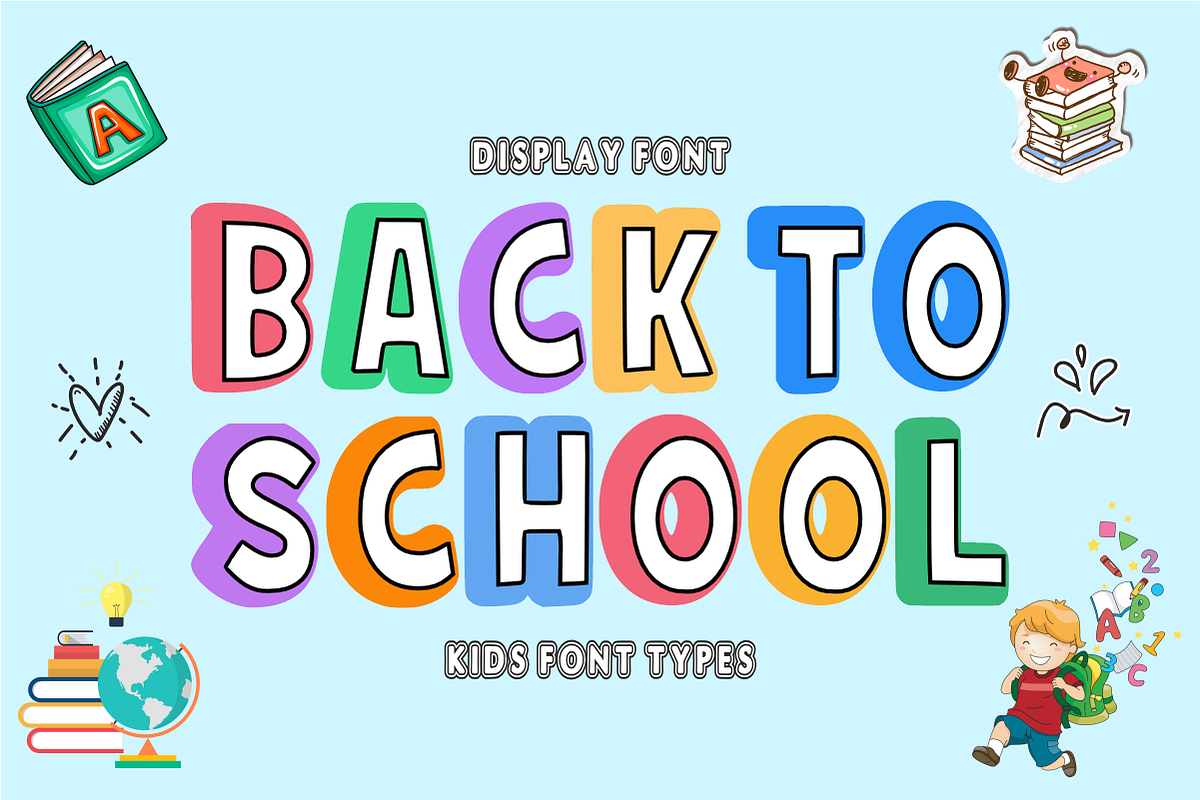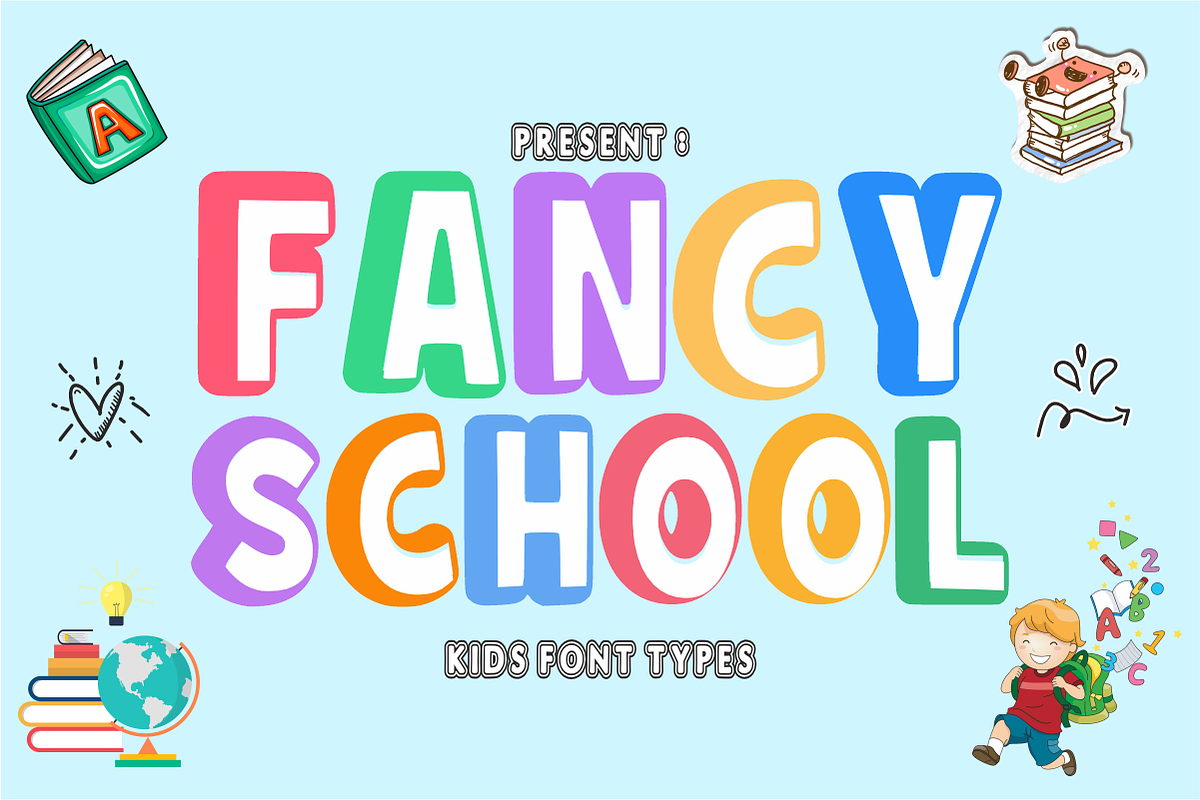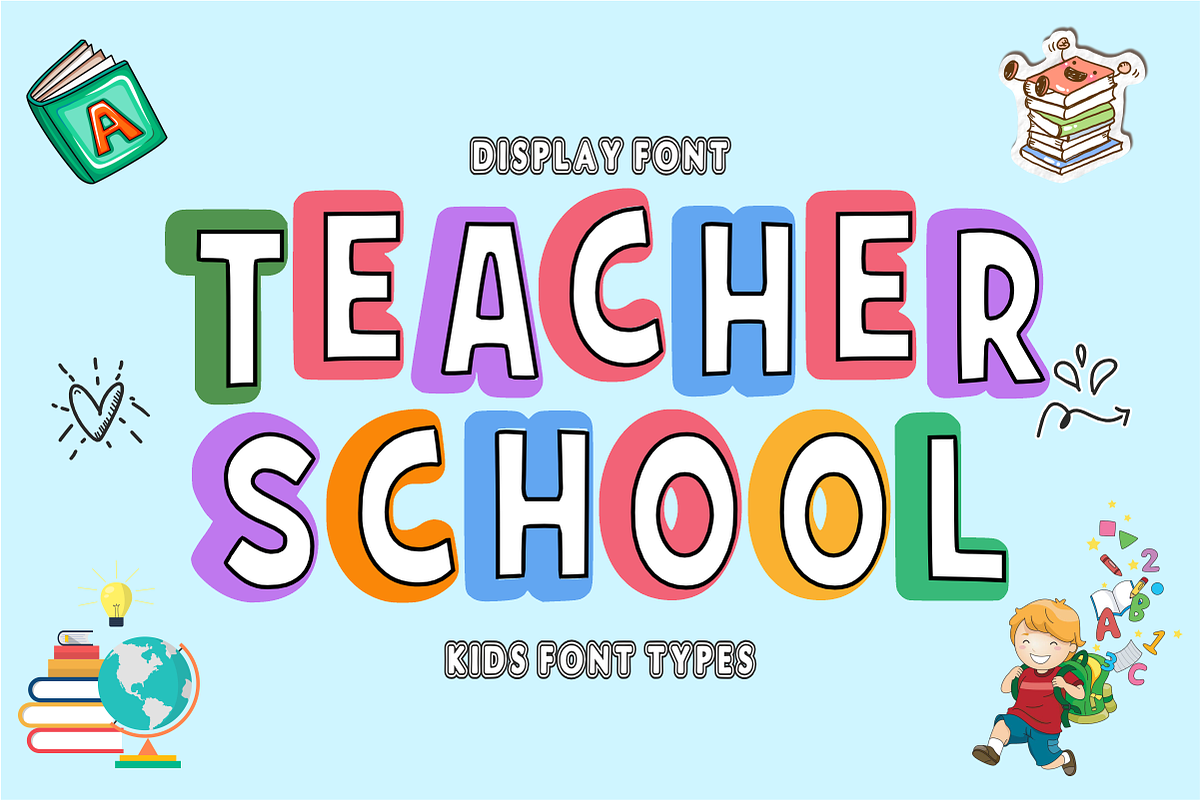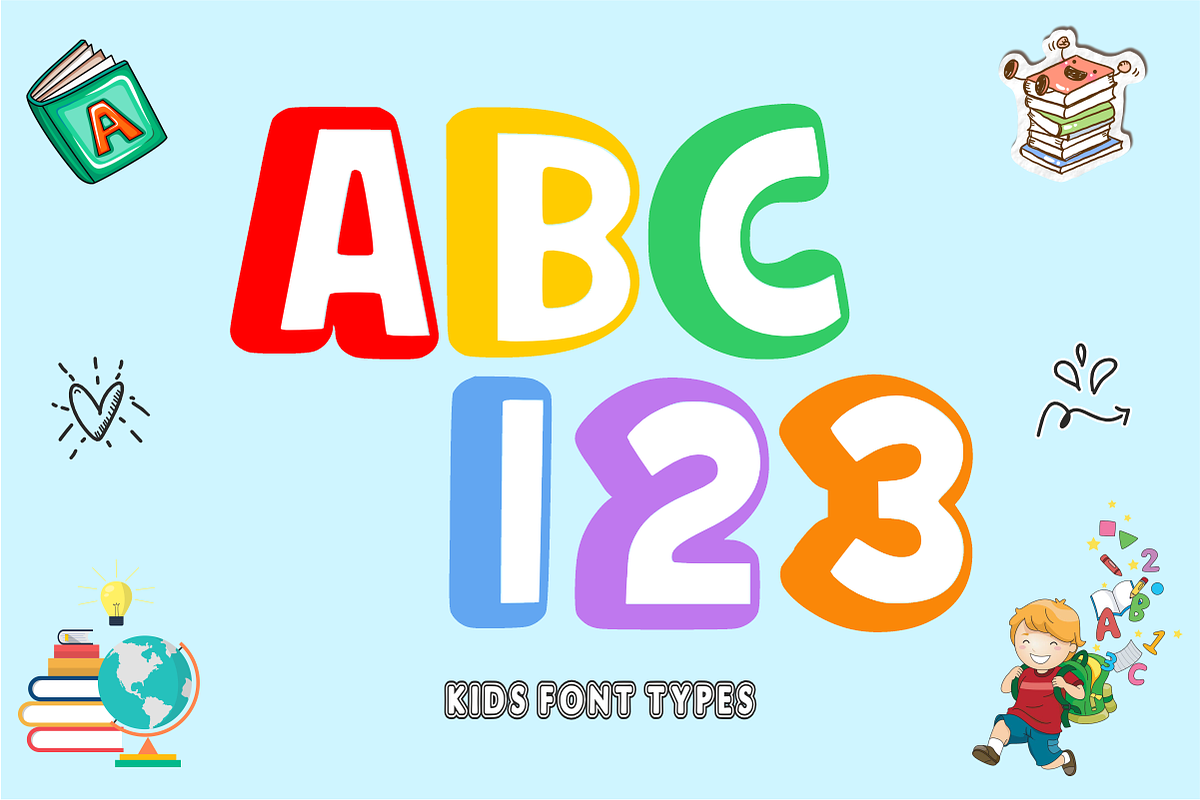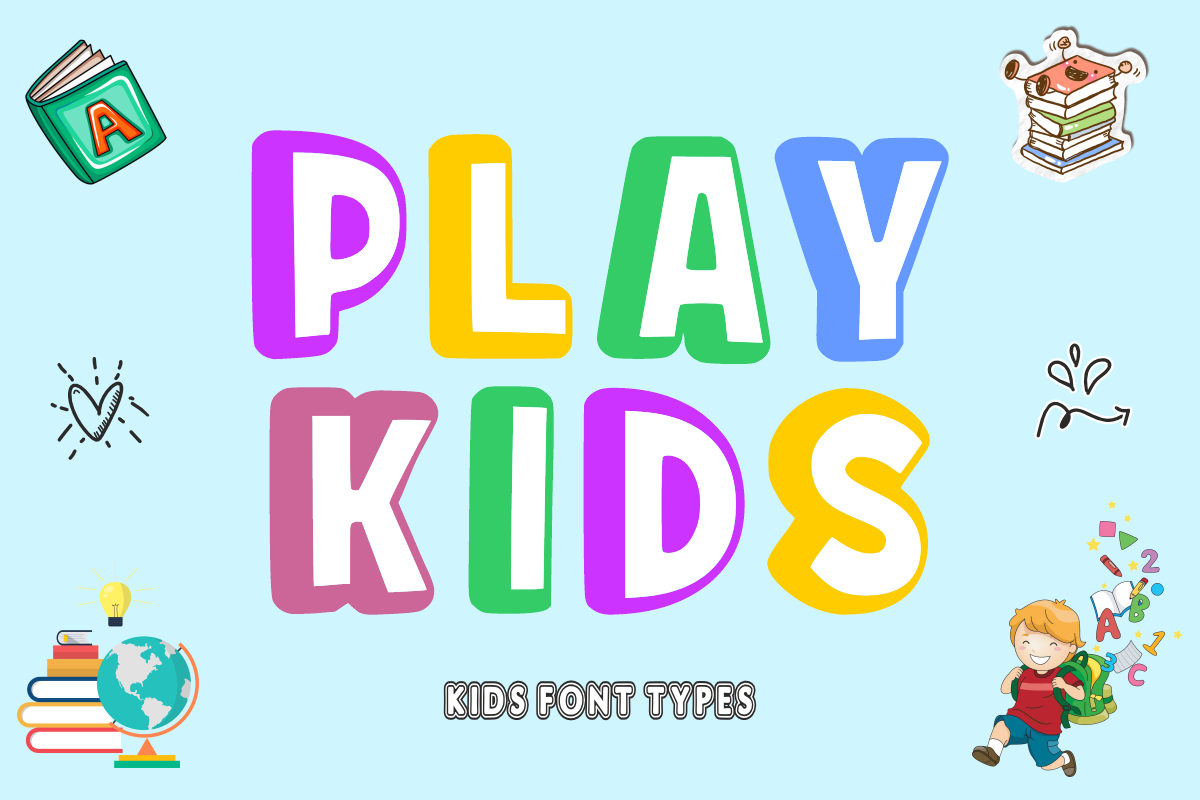
Fancy School - Playful Kids Font
Bring a blast of cheerful, energetic fun to your designs with Fancy School! This bold, chunky display font features tall, whimsical block letterforms paired with a clean, striking 3D shadow effect that makes every word leap off the page. It is specifically designed to make classroom materials, educational titles, and kids' crafts look incredibly vibrant, organized, and inviting.
Perfect for teachers, busy creators, and trend-focused crafters, Fancy School effortlessly combines an enthusiastic academic aesthetic with excellent readability. It is highly versatile, cuts beautifully on digital crafting tools like Cricut, and is fully optimized for a flawless look across all professional design software and print setups.
All-Caps Character Set (Chunky, tall uppercase letters with an eye-catching 3D extrusion style)
Numbers & Simple Punctuation (Essential, clean symbols included)
Teacher Resources, Classroom Decor, & Educational Worksheets ✏️
Children's Book Covers, School Event Posters, & Academic Yearbooks 📚
Cricut, Silhouette, & DIY Fun School Craft Sublimation Projects ✂️
Kids' Apparel, School Spirit Merch, Custom Backpacks, & Tote Bags 👕
Kindergarten Logos, Playful Toy Packaging, & Birthday Party Invites 🎈
High-Impact YouTube Thumbnails, Cute Stickers, & Social Media Layouts ✨